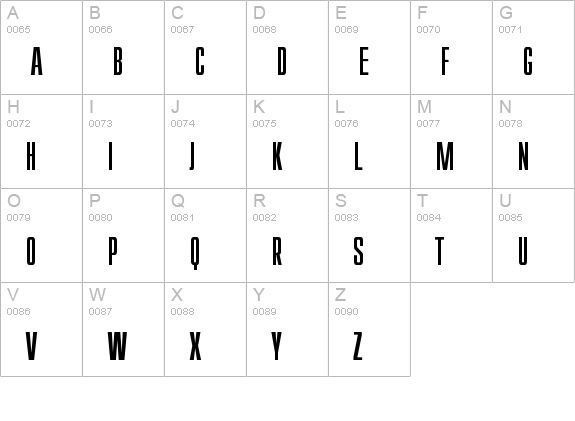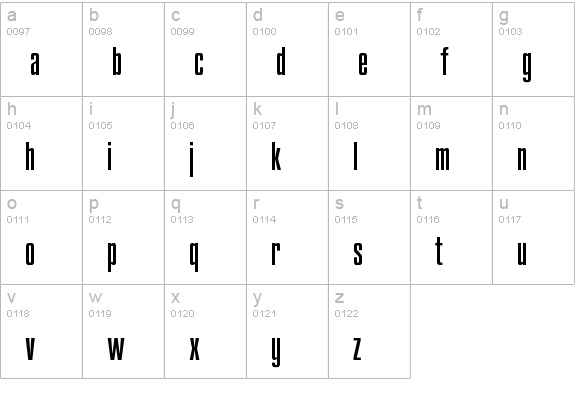
PT Compact Cyrillic Font Details
The PT Compact Cyrillic font is a sleek and modern typeface that is perfect for a wide range of design projects. Its clean lines and contemporary look make it ideal for branding, advertising, and editorial design. This versatile font features Cyrillic characters, making it suitable for multilingual projects. Best of all, the PT Compact Cyrillic font is available for free download at FontsMarket.com. Whether you are a designer looking to add a fresh touch to your creations or a business owner seeking a professional font for your branding, this font is an excellent choice. With its stylish design and easy readability, the PT Compact Cyrillic font is sure to make a lasting impression on any project.